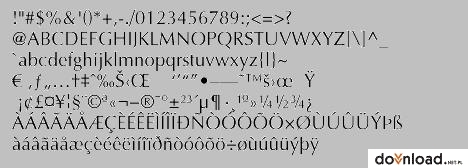
Rubicon Opulent Fonts Standard Truetype format. Like Optima, sans serif font, accurate and well hinted. Matching font metrics, full char set, euro symbol, kerning pairs.